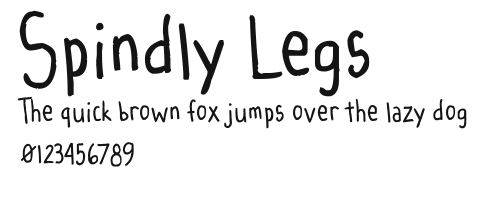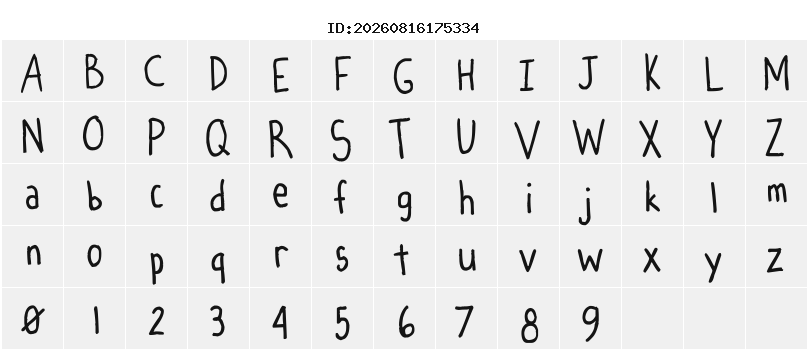
• Font Name: Spindly Legs
• Full Font Name: Spindly Legs
About Spindly Legs.ttf
Spindly Legs.ttf is a modern, elegant sans-serif font designed for ultimate readability and visual harmony. Perfect for branding, headlines, web design, and print materials.